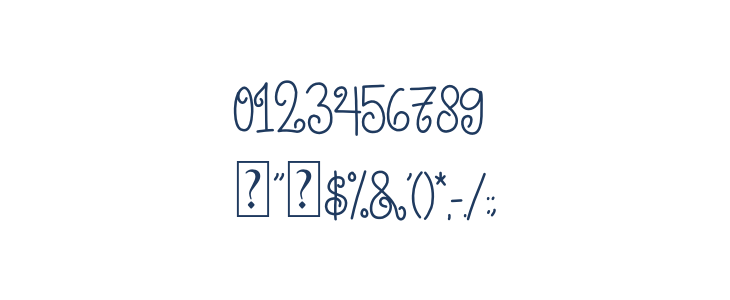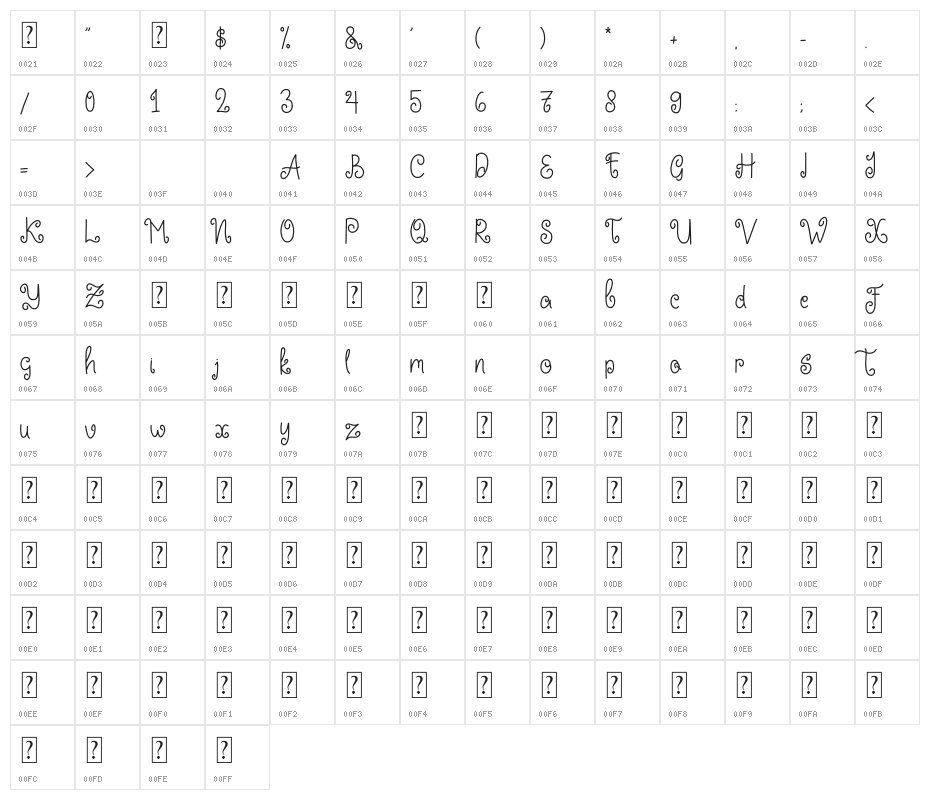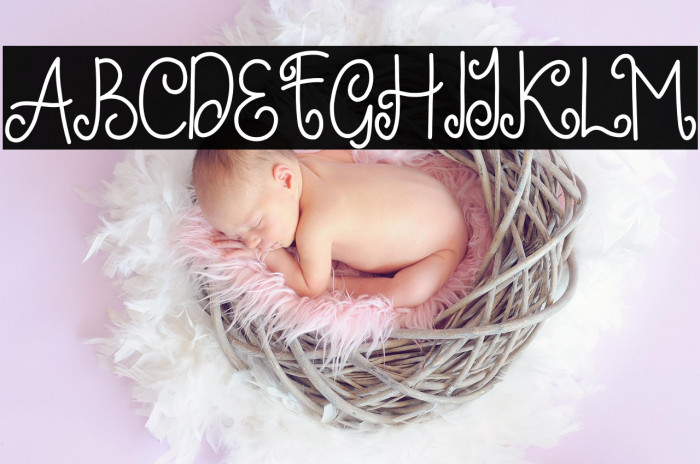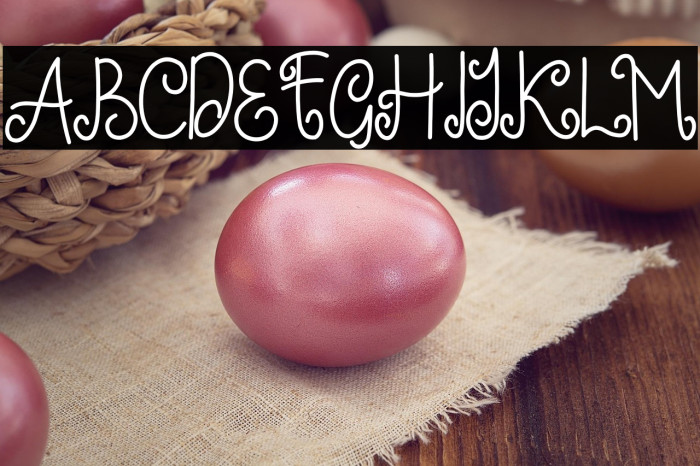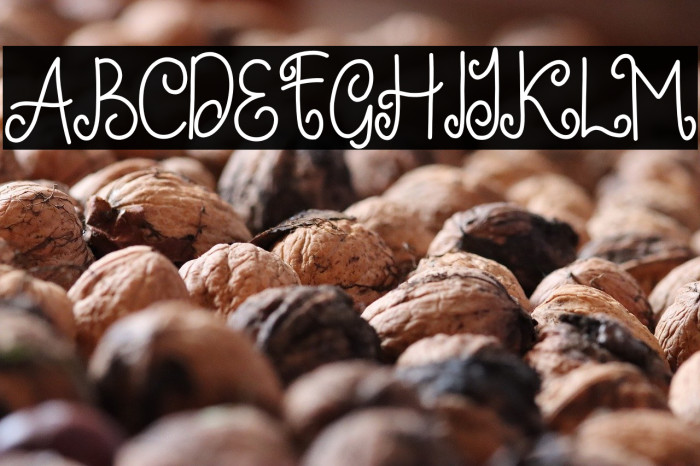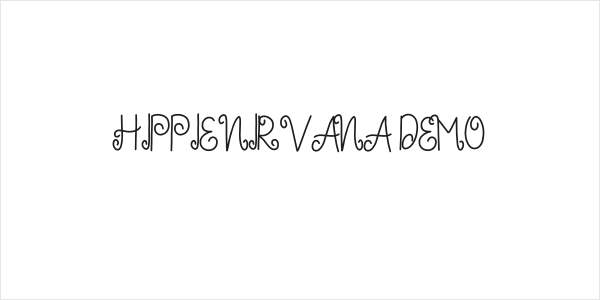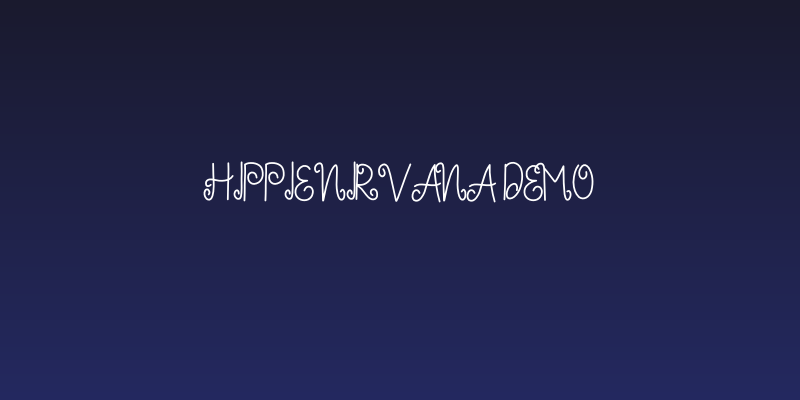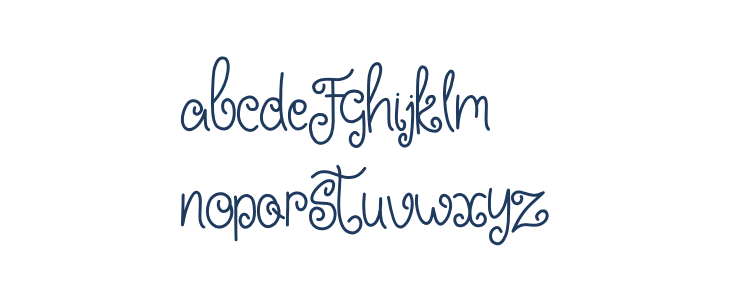
HIPPIE NIRVANA DEMO Font
HIPPIE NIRVANA DEMO Description
This font exudes a whimsical and playful vibe, characterized by its curly and looping letterforms. The uppercase letters are particularly ornate, with swirls and embellishments that give them a decorative flair. The lowercase letters maintain a consistent style, with a slightly more subdued but still playful appearance. The numerals are clear and maintain the same decorative style, ensuring consistency across all characters. Special characters are also included, featuring the same curly embellishments. This font is perfect for projects that require a touch of fun and creativity, such as children's books, playful branding, or artistic posters.